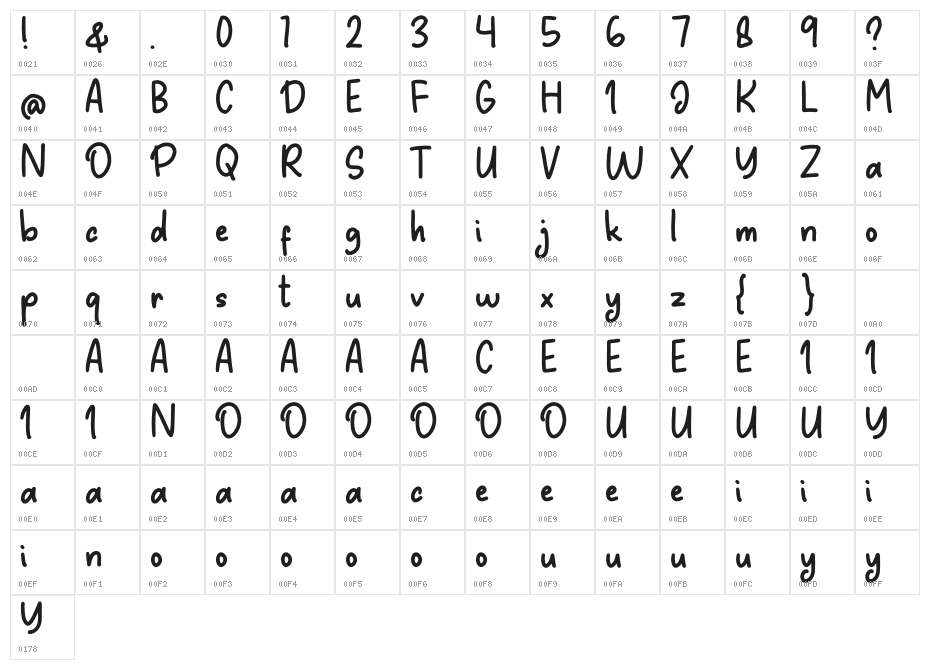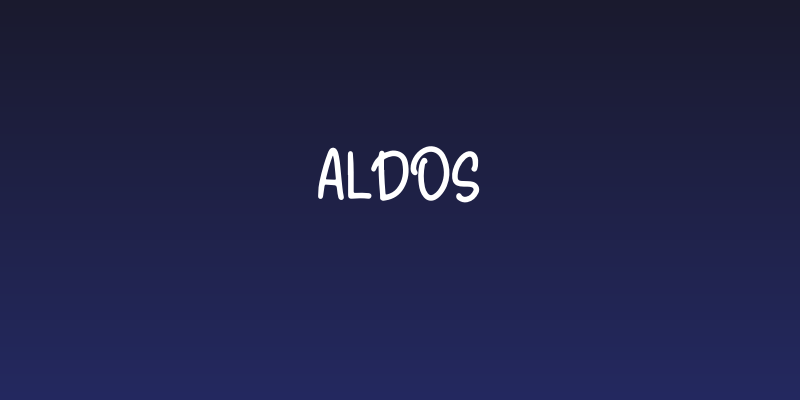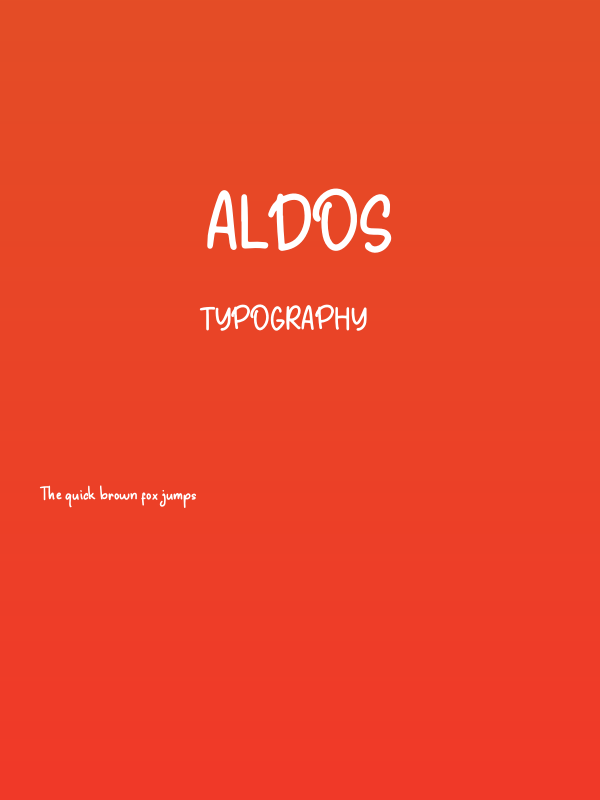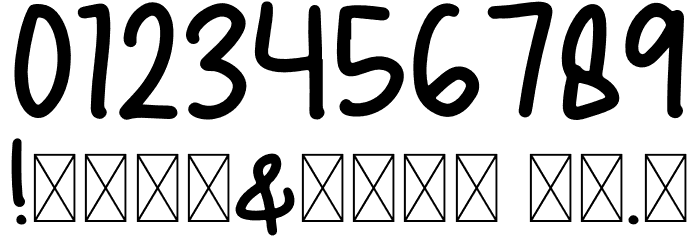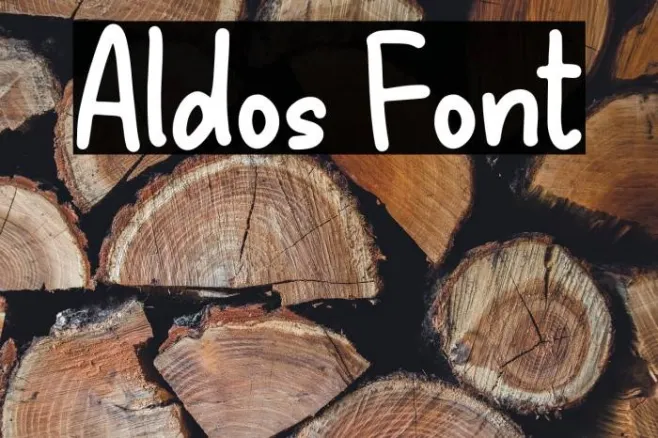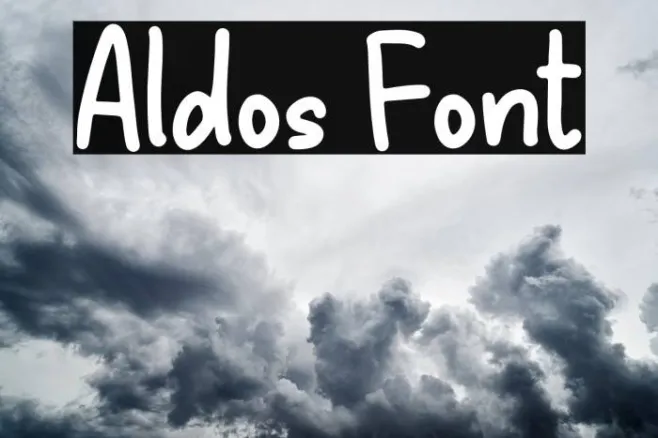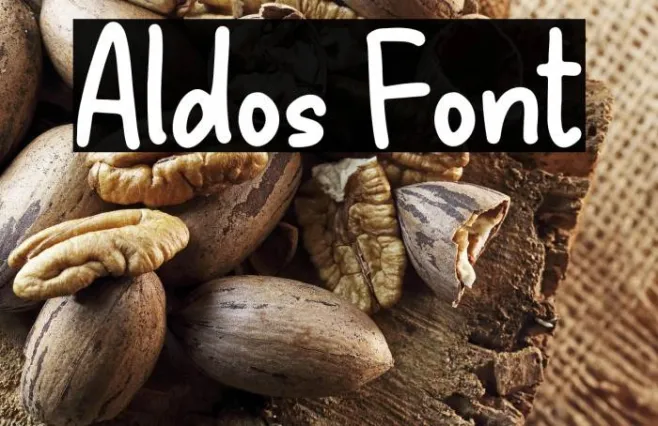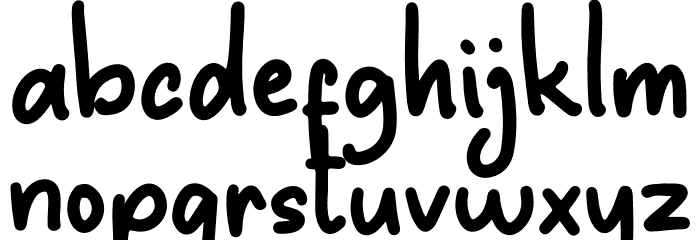
Aldos Font
Aldos Description
This font features a playful and casual handwritten style, characterized by its rounded and slightly irregular letterforms. The uppercase letters are bold and prominent, while the lowercase letters maintain a consistent flow, adding to the informal aesthetic. The numbers are clear and easy to read, matching the overall style of the alphabet. Special characters are included, maintaining the same playful and approachable design. The font's overall appearance is friendly and inviting, making it suitable for a variety of creative projects.